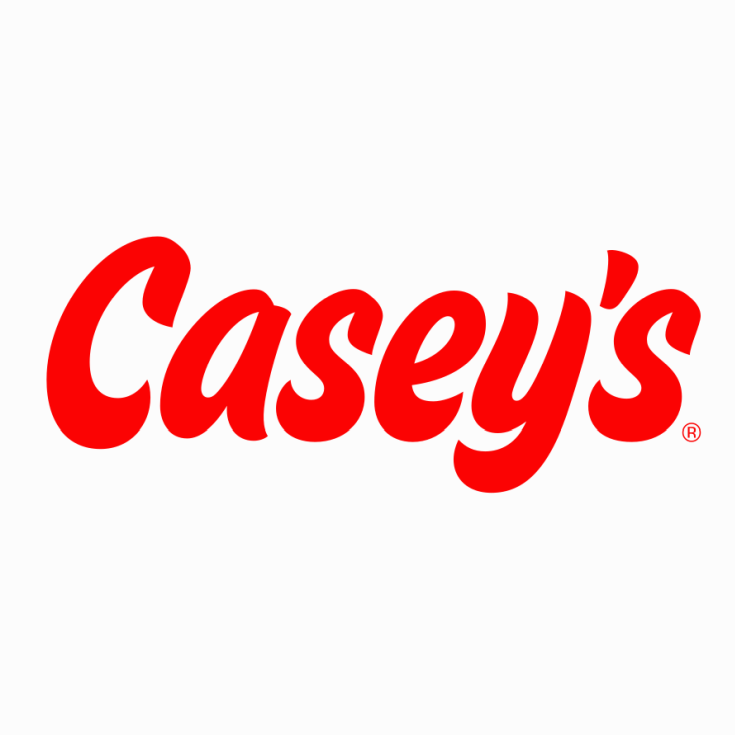
Casey's Logo Font
Fonts in UseCasey’s General Stores is a chain of convenience stores primarily located in the Midwestern United States, founded in 1959 by Don Lamberti. They offer a range of products including groceries, prepared foods, snacks, and beverages, as well as fuel services.
The House Movements Sign font, which belongs to the House Industries' font collection called House Movements, was used for the logo. The House Movements font collection features five fonts - Custom, Poster, Runway, Soiled, and Sign - that represent the various typographic movements encountered by the foundry within their first decade of operation.